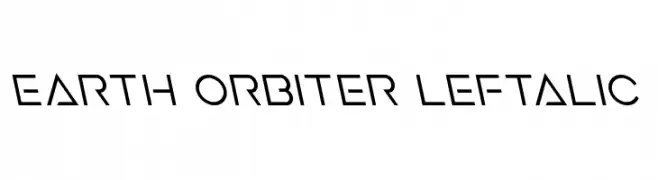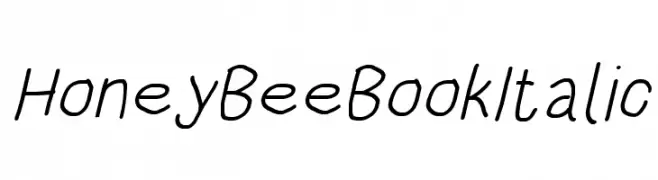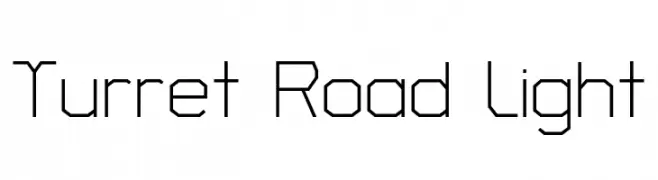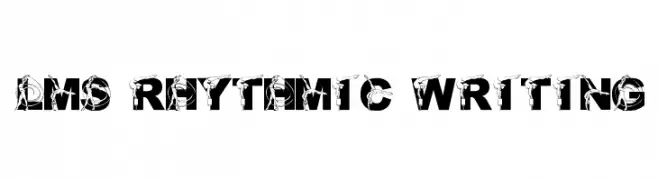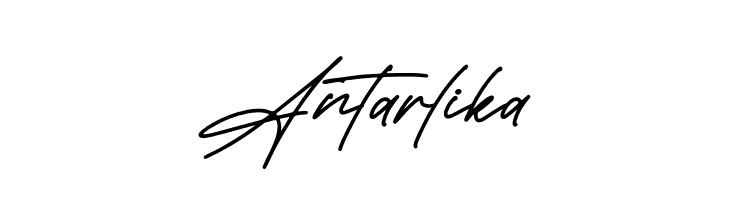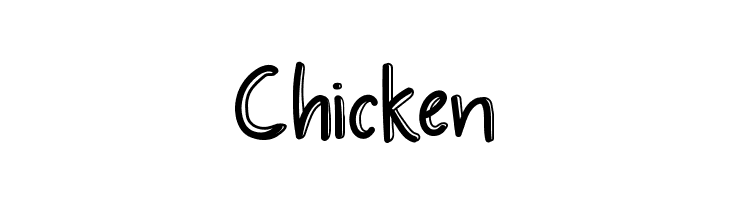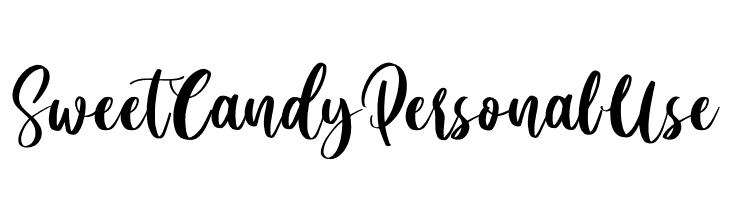
A pixelated, retro-style font ideal for digital and nostalgic themes.
A playful, bold font with rounded, cartoonish characters.
An elegant and sophisticated script font with intricate swashes and flowing cursive style.
A futuristic, angular font with consistent stroke thickness and dynamic slant.
A playful, handwritten font with smooth curves and a casual, slanted style.
A geometric, angular font with a modern and futuristic style.
A distressed, grunge-style font with a bold, narrow, and condensed appearance.
A distressed, hand-drawn font with angular, bold strokes and a rugged appearance.
A bold, decorative font featuring gymnastic figures integrated into each character.